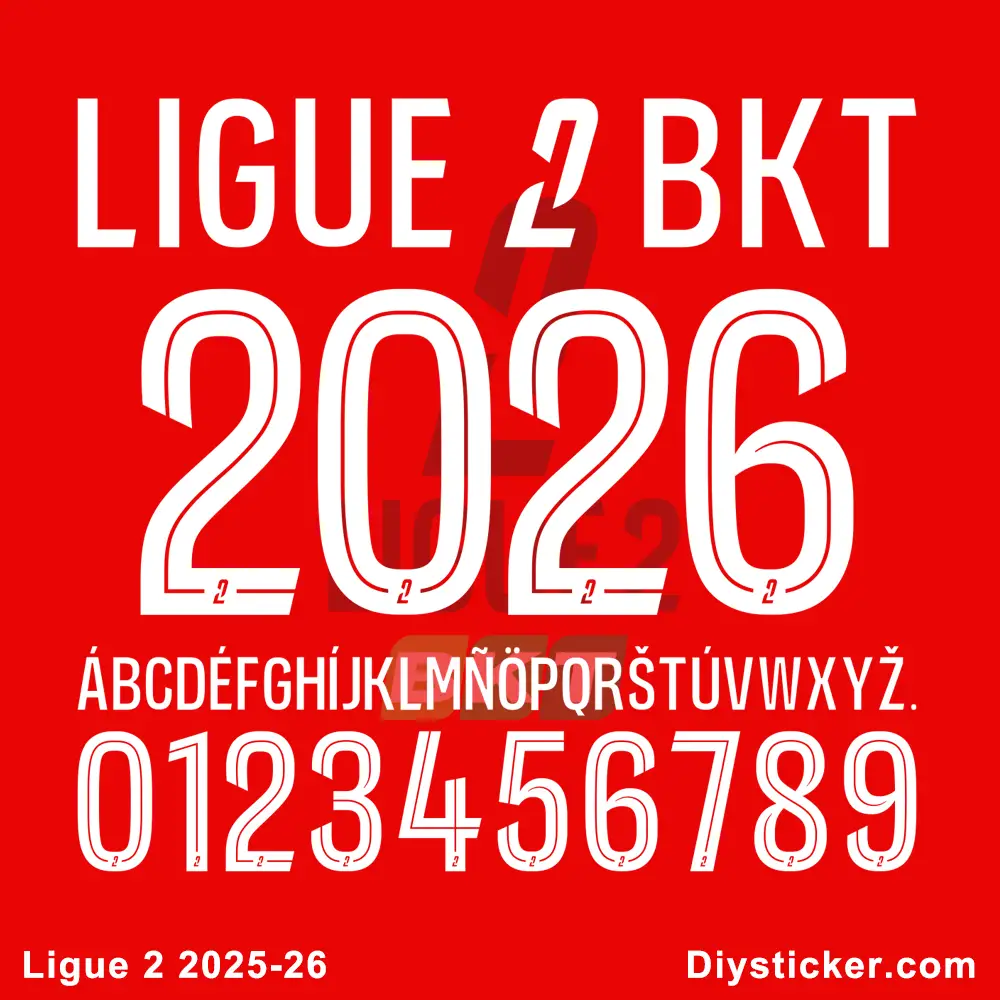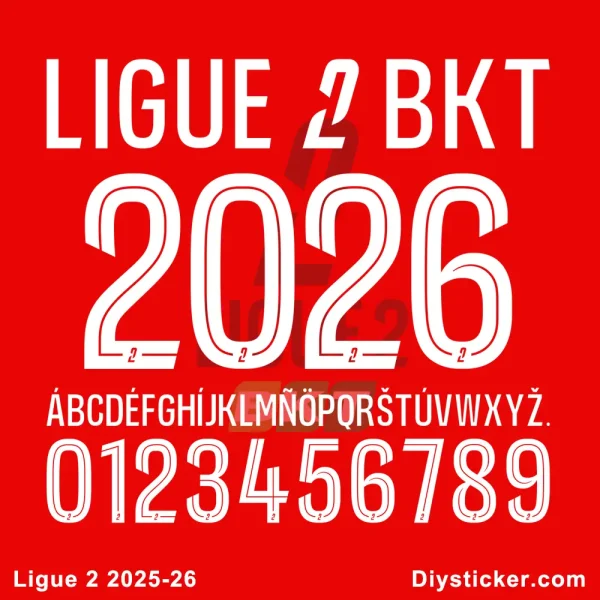
Design with the official identity of France’s second division using the Ligue 2 2025-2026 Font. This is the authentic typeface used across the league’s official branding, graphics, and club communications for the upcoming season.